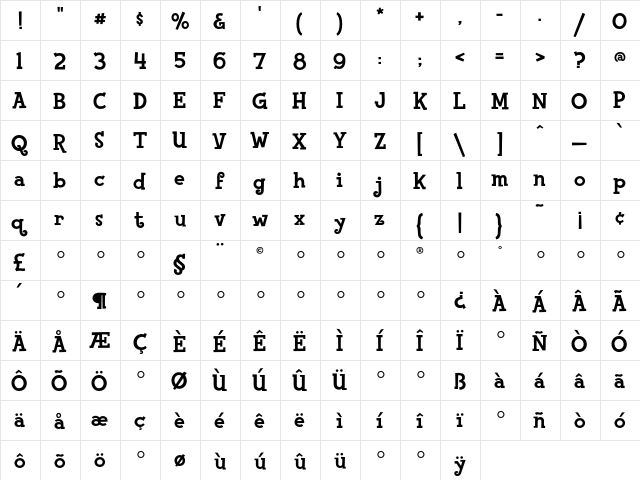
FinkHeavy Medium
Design Context for FinkHeavy Typeface
FinkHeavy offers clean, dependable letterforms without strong stylistic allegiance, making it a practical choice for designers who need flexibility.